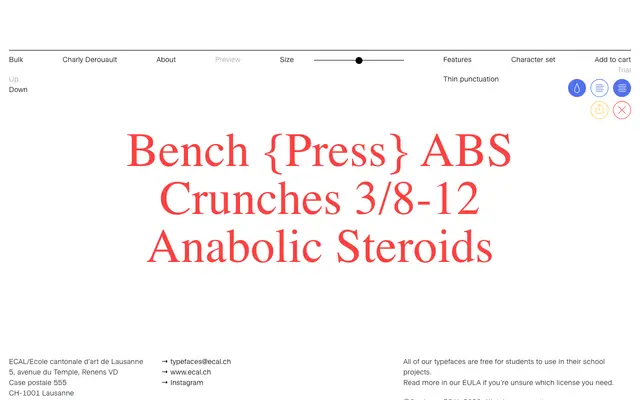
A two-cut titling typeface by Charly Derouault that pits a calm classical ductus against sharply angular, hollowed-out letterforms.
Designed at ECAL and released in 2022, Bulk takes its conceptual cue from stone and body sculpting, producing two cuts at opposite ends of a spectrum. Bulk Down is static and classically proportioned; Bulk Up is aggressive, with sharp protrusions and carved-out counters. Thin alternates complement the strong primary forms, making both cuts well suited to daring headline work and logotypes.
Bulk is a titling typeface with two stylistically opposed cuts — one classical and static, one angular and aggressive — placing it firmly in the display category with no conventional text application intended.